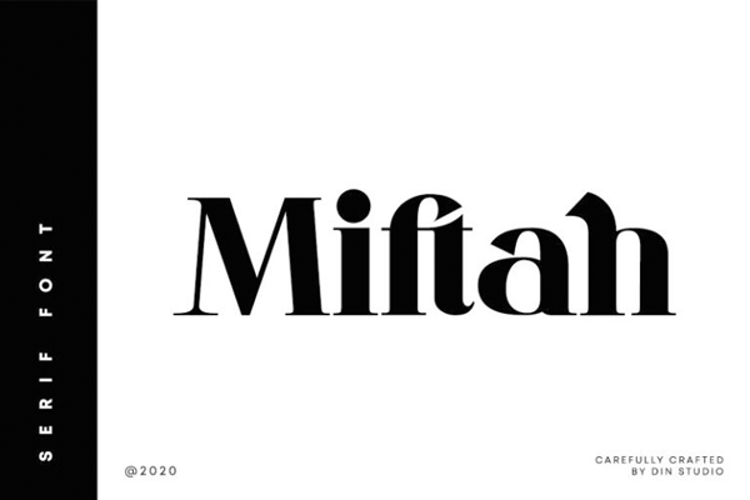
Miftah Font
Product Description :
Miftah is a modern serif font made for any professional project brandings which is best used for logos, brandings, and quotes. Every letter has a unique and beautiful touch.
Features include:
• Ligatures
• Stylistic Sets
• Swashes
• Multilingual Supports
• Numerals and Punctuations